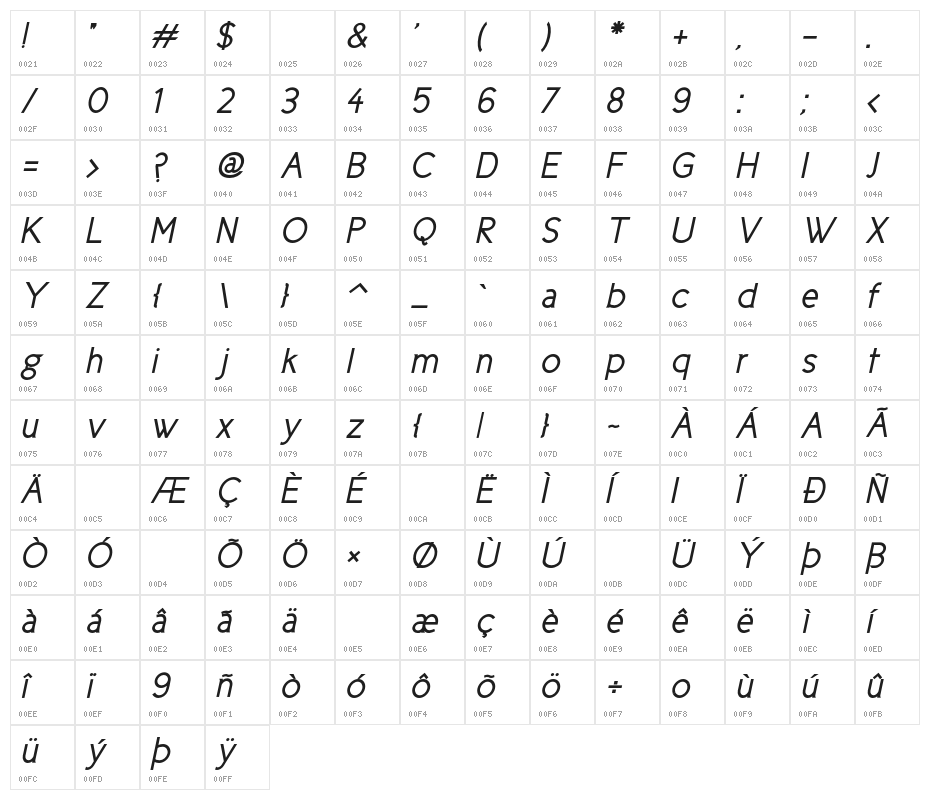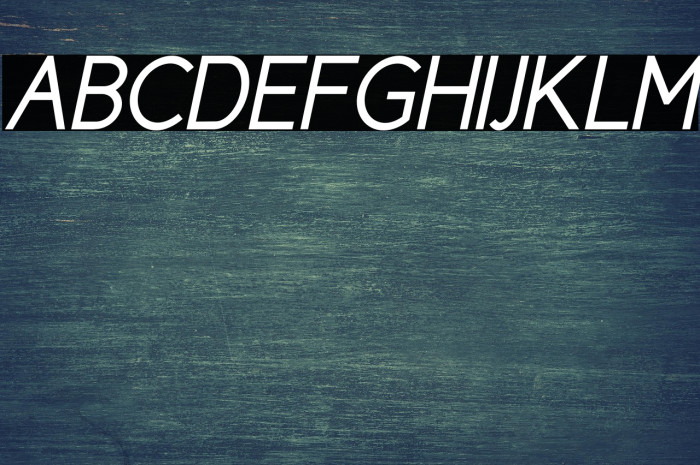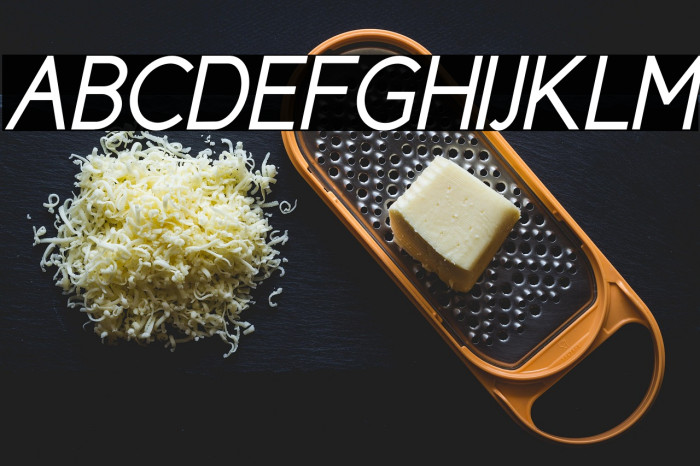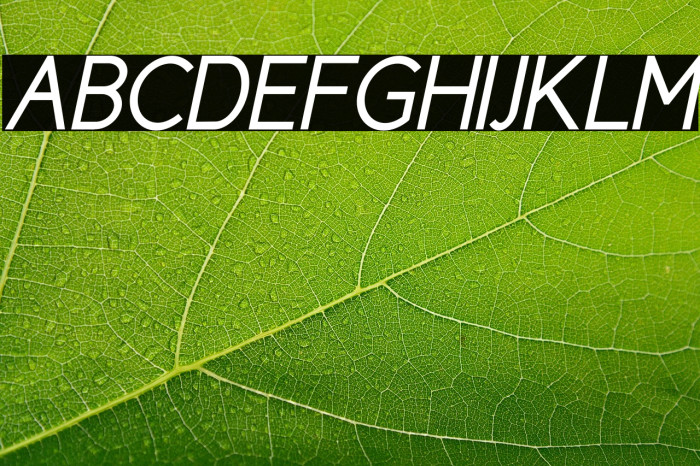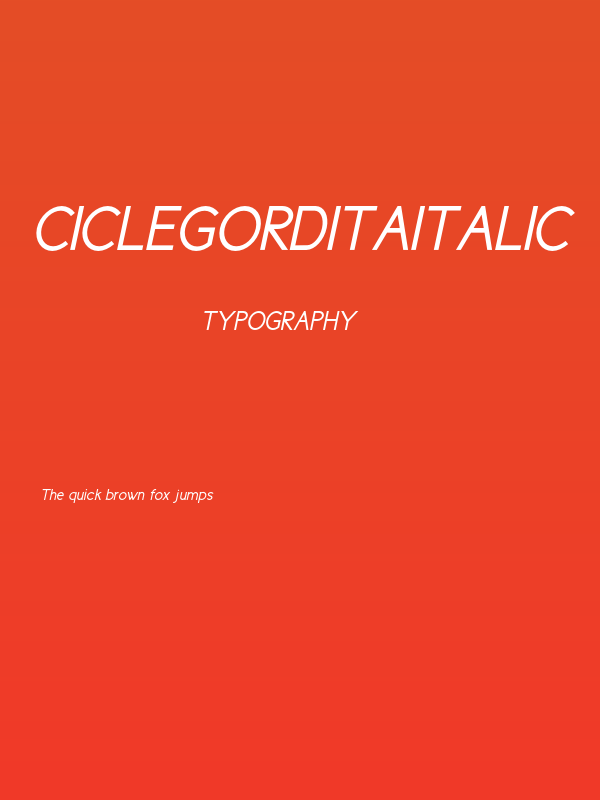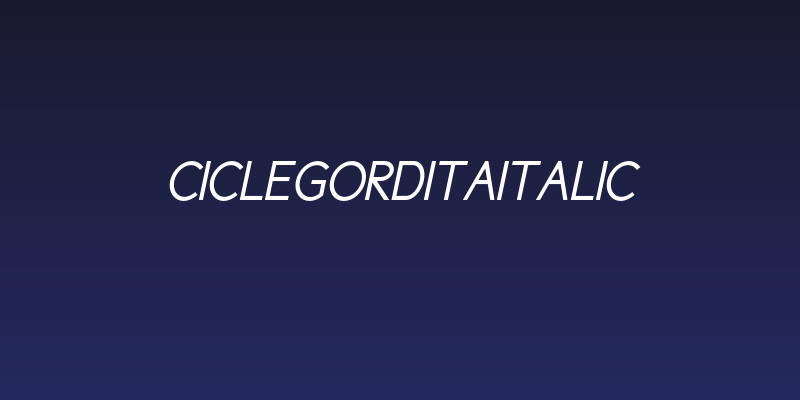
CicleGorditaItalic Font
CicleGorditaItalic Description
This font features a sleek and modern design with a slight italic slant, giving it a dynamic and forward-moving appearance. The characters are well-proportioned with a consistent stroke width, contributing to a clean and professional look. The uppercase letters are bold and assertive, while the lowercase letters maintain a friendly and approachable style. The numerals are clear and easy to read, making them suitable for various applications. Special characters are distinct and well-integrated, enhancing the font's versatility. Overall, this font combines elegance with readability, making it ideal for contemporary design projects.
| Proposed Projects | Ideal for branding, advertising, modern web design, and editorial layouts. |